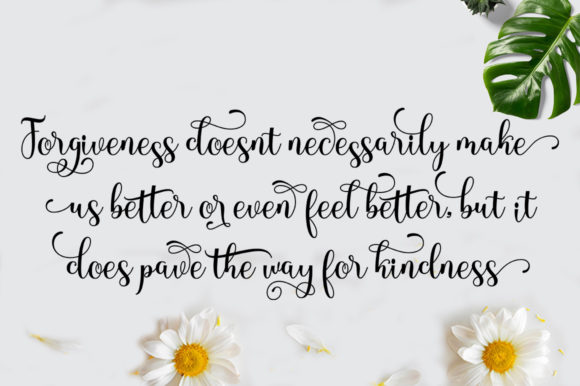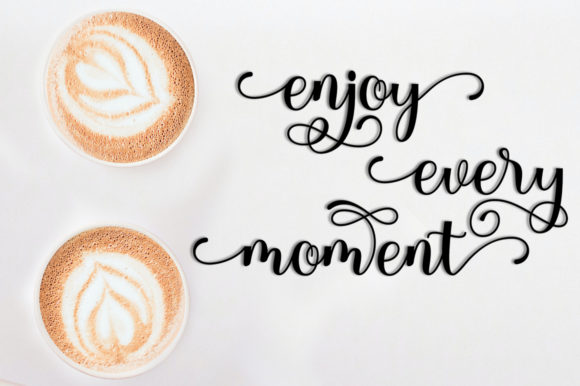
About Kellyna Font
Kellyna, a font of delicate grace and refined elegance, emerges as a true masterpiece in the realm of handwritten fonts. Its meticulously crafted characters exude a sense of beauty and balance, making it a perfect match for a diverse range of design projects. Kellyna is not just a font; it’s an embodiment of sophistication that adds a touch of enchantment to every creative endeavor.
The flowing lines and exquisite curves of Kellyna make it a font that stands out in any design context. Its versatility is its strength, seamlessly adapting to various projects and purposes. From the moment you lay your eyes on Kellyna, you’ll be captivated by its charm, and once incorporated, it transforms your designs into works of art.
Kellyna’s varying baseline adds a dynamic touch to your creations, infusing them with a sense of movement and personality. Each character seems to dance and come to life on the page, creating an engaging visual experience that captures attention. This feature lends an organic and handcrafted feel, making your designs feel personalized and authentic.
The smooth lines of Kellyna are a testament to its careful design. Every stroke is thoughtfully placed, ensuring that the font maintains its elegance and readability. The graceful flow of each character creates a harmonious composition that is not only pleasing to the eye but also conveys your message with clarity.
Behind the curtain of Kellyna’s characters lie an array of gorgeous glyphs and stunning alternates. These intricate details offer you a treasure trove of design possibilities, allowing you to experiment and customize to your heart’s content. Whether you’re working on wedding invitations, logos, quotes, or any other project, Kellyna’s alternates ensure that your designs are as unique as they are stunning.
Integrating Kellyna into your creative process is akin to adding a touch of magic. Its delicate elegance elevates every aspect of your design, imparting a sense of sophistication that resonates with audiences. Kellyna doesn’t just complement your ideas; it amplifies their impact, creating an unforgettable impression through its subtle yet powerful presence.
As you watch Kellyna come alive within your projects, you’ll discover its ability to breathe life into your creative vision. It transforms ordinary designs into extraordinary ones, infusing them with an allure that is hard to resist. Each curve, each line, and each alternate character contribute to the symphony of elegance that Kellyna brings to your work.
Incorporate Kellyna into your designs, and you’ll witness the transformation it imparts. It’s more than a font; it’s a partner in your creative journey, enhancing your ideas and bringing them to life with its delicate yet powerful allure. With Kellyna, your designs become a canvas for elegance, sophistication, and timeless beauty.